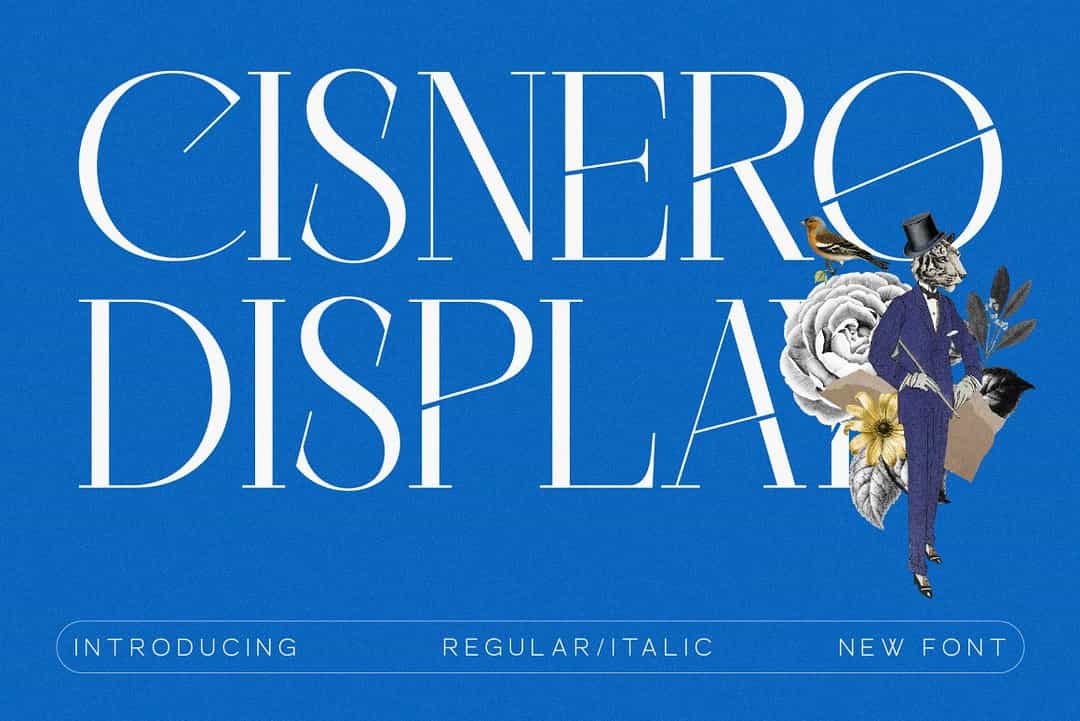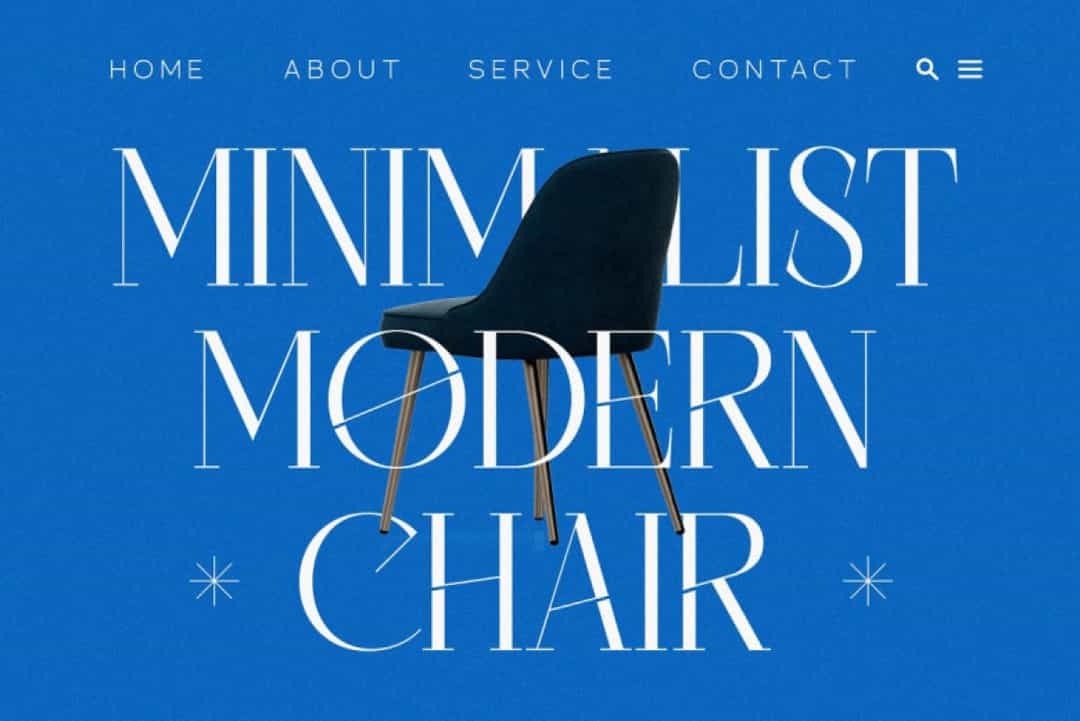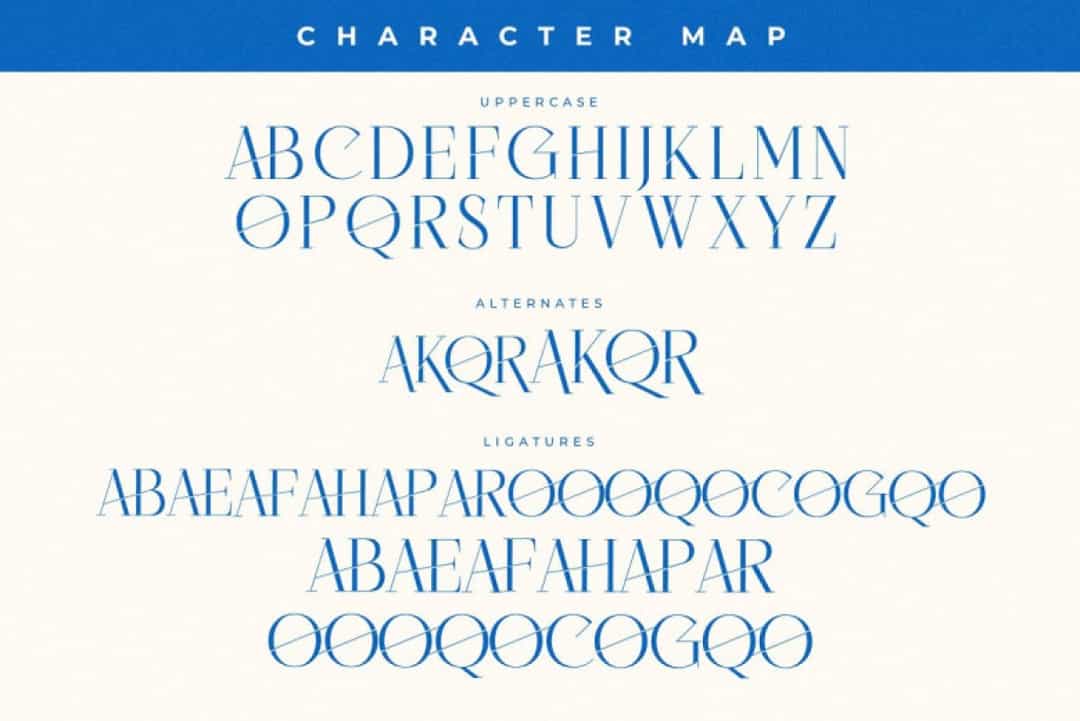
Discover Cisnero Font, part of the Serif Display collection—a versatile and unique font perfect for adding a personal touch to your projects. Download it for free and enjoy crafting designs with style, from invitations to social media posts. This font is available exclusively for personal use, giving you the freedom to create without limits. Unlock your creativity with Cisnero Font today!
Cisnero can be defined as both classic and modern display serif font, boasting its distinct style and contemporary appearance. Ideal for sophisticated logo designs, movie or book name design, fashion label clothing designs, magazines lettering projects and quotes among many other uses, Cisnero font is great to use as part of a sophisticated and luxurious logo, movie name design or magazine article lettering projects – making an exceptional choice!